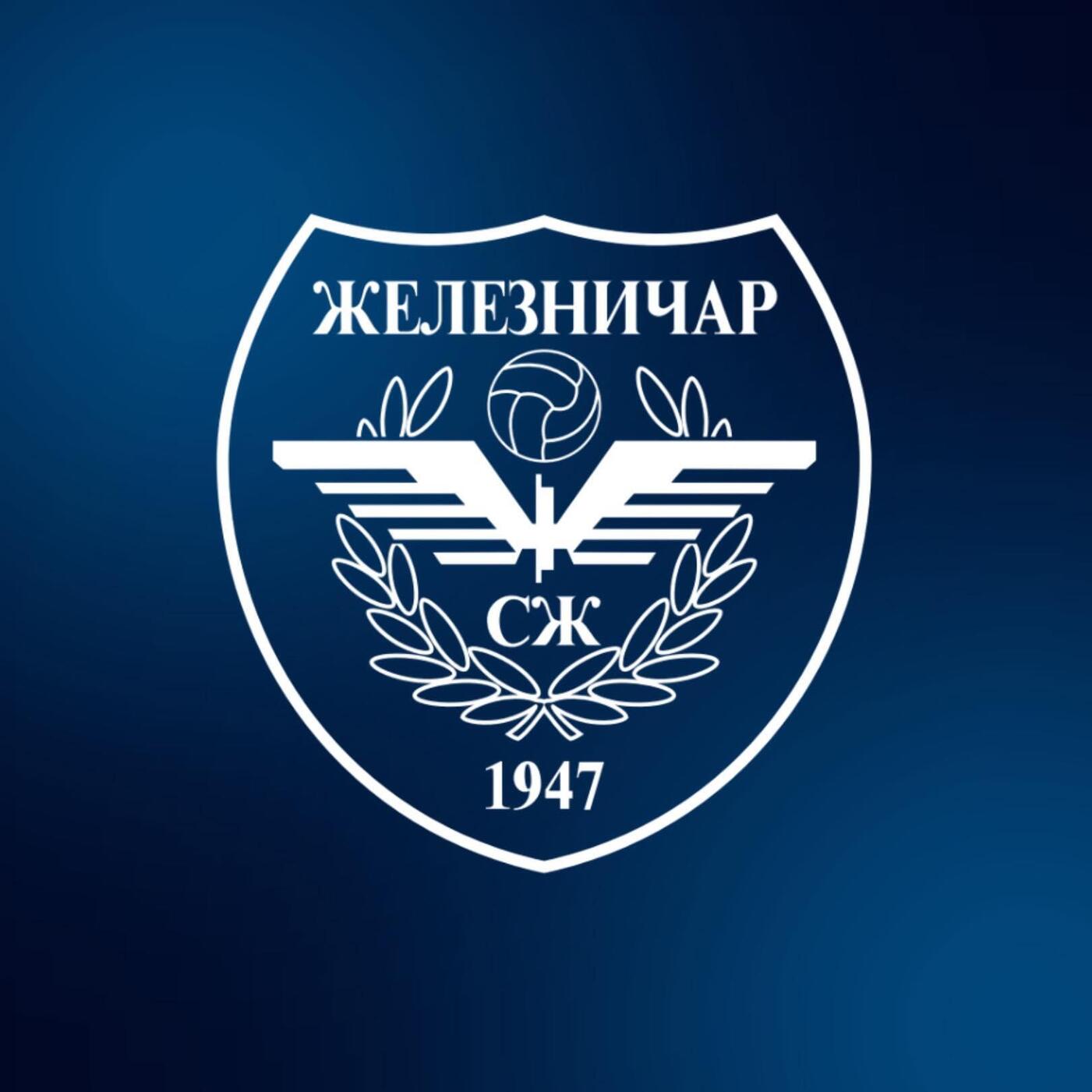
Cyrillic font similar to Times New Roman but not the same (Zeleznicar Pancevo)
Trying to find the exact same font from this Serbian football club named Zeleznicar Pancevo. I've been trying to find it but I am awful finding Serbian fonts.